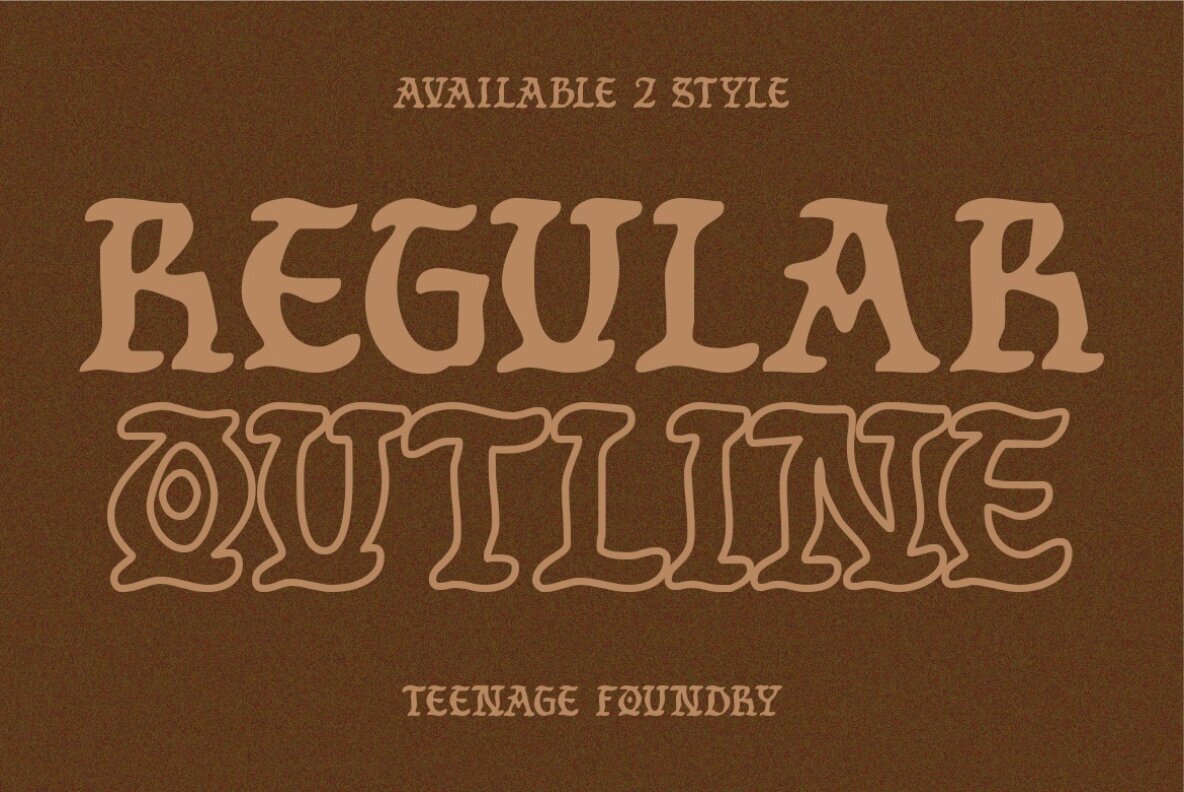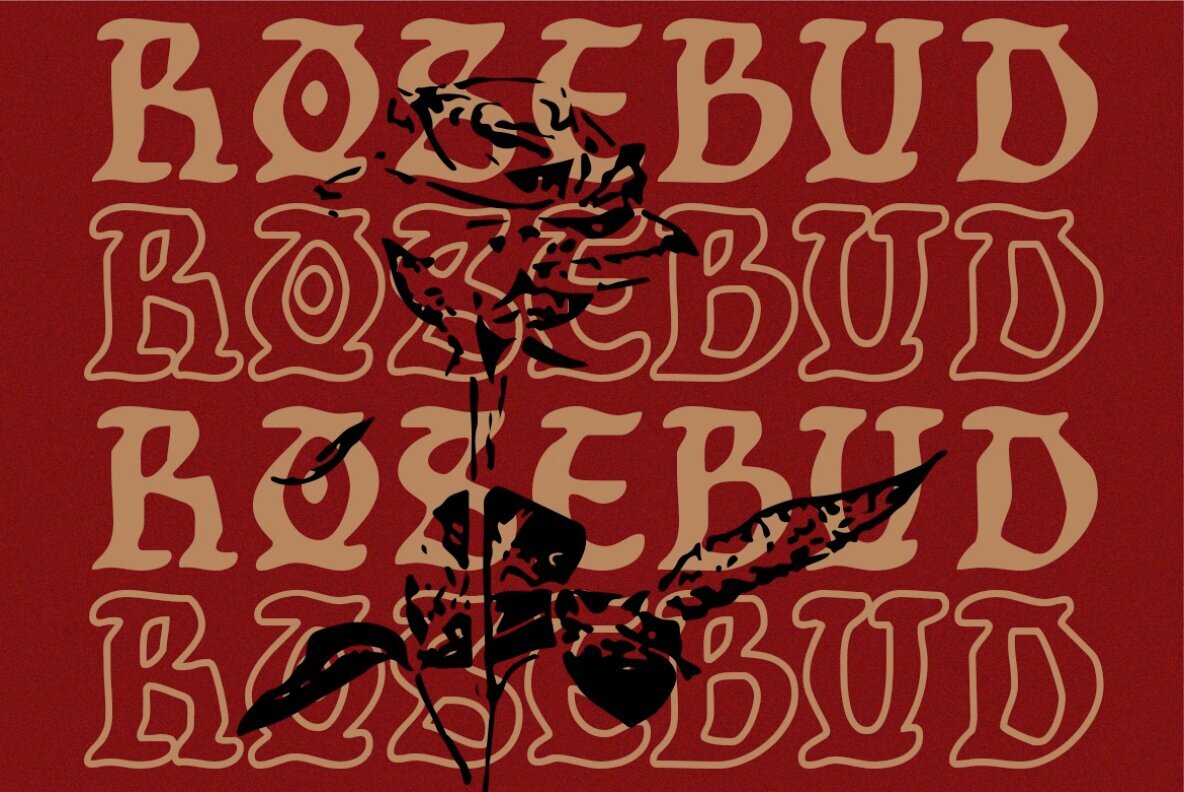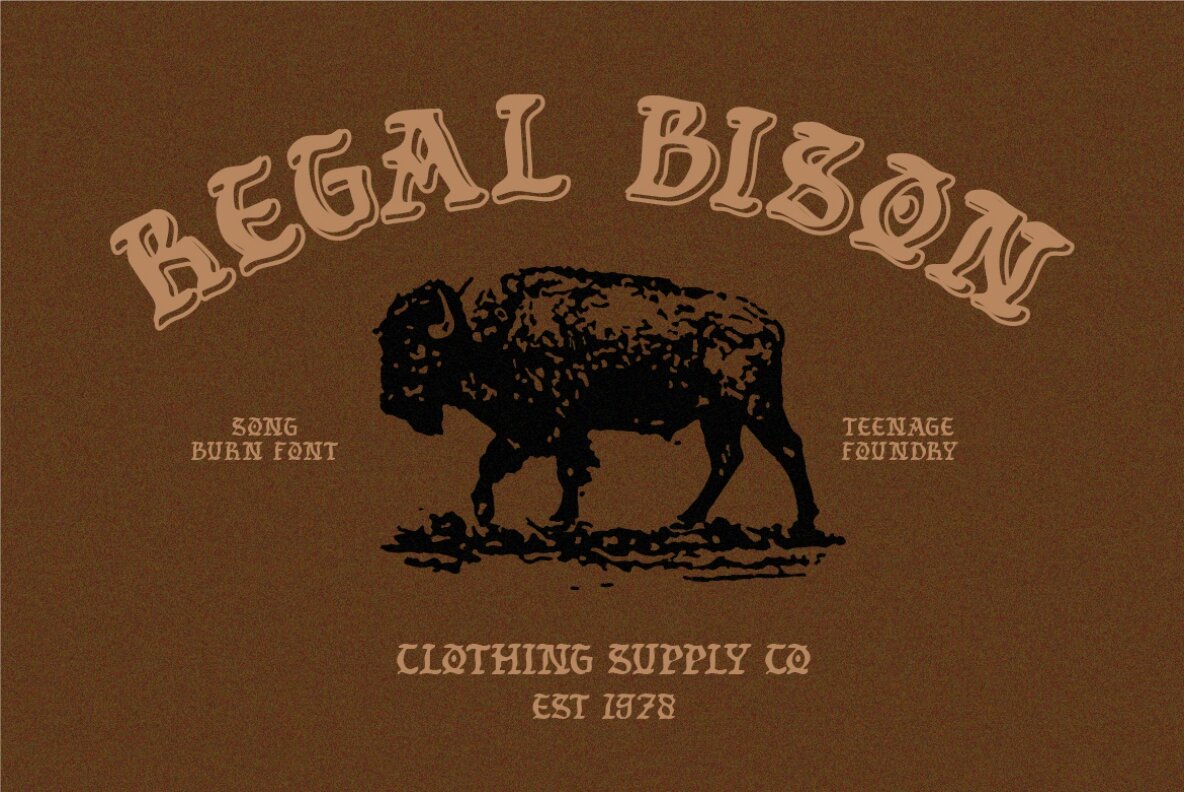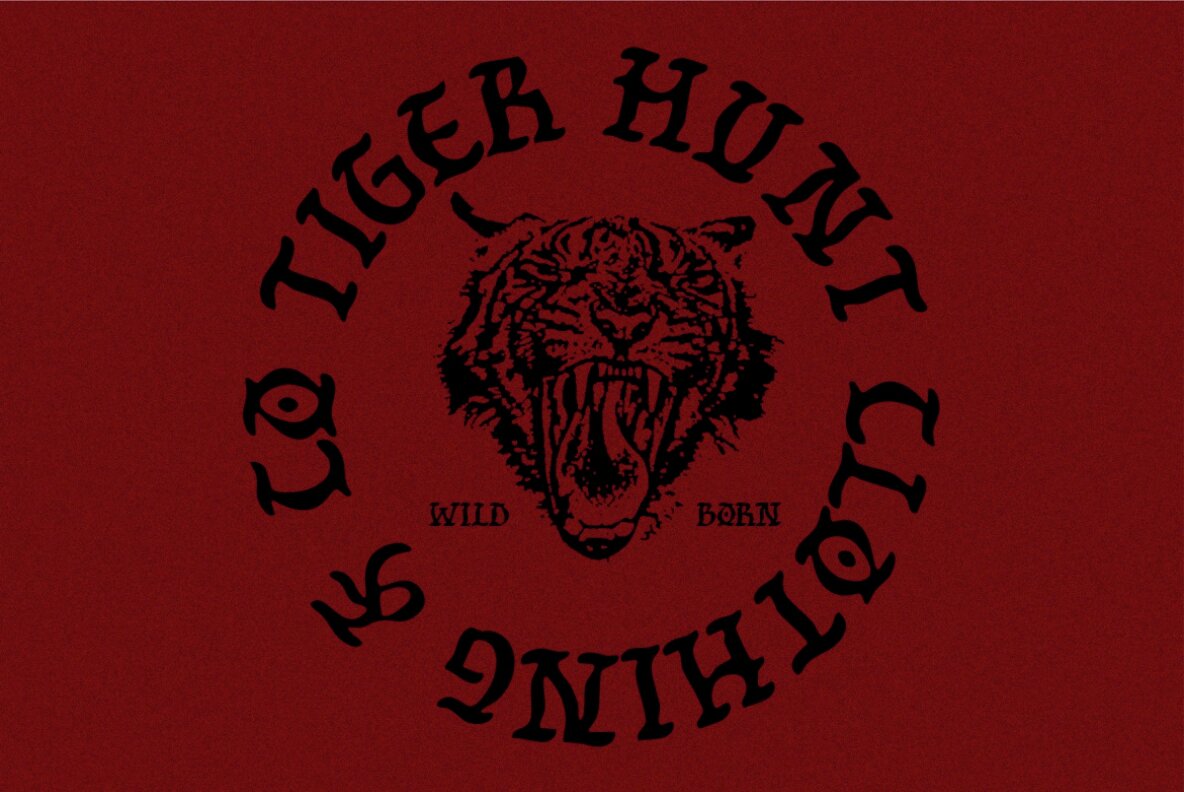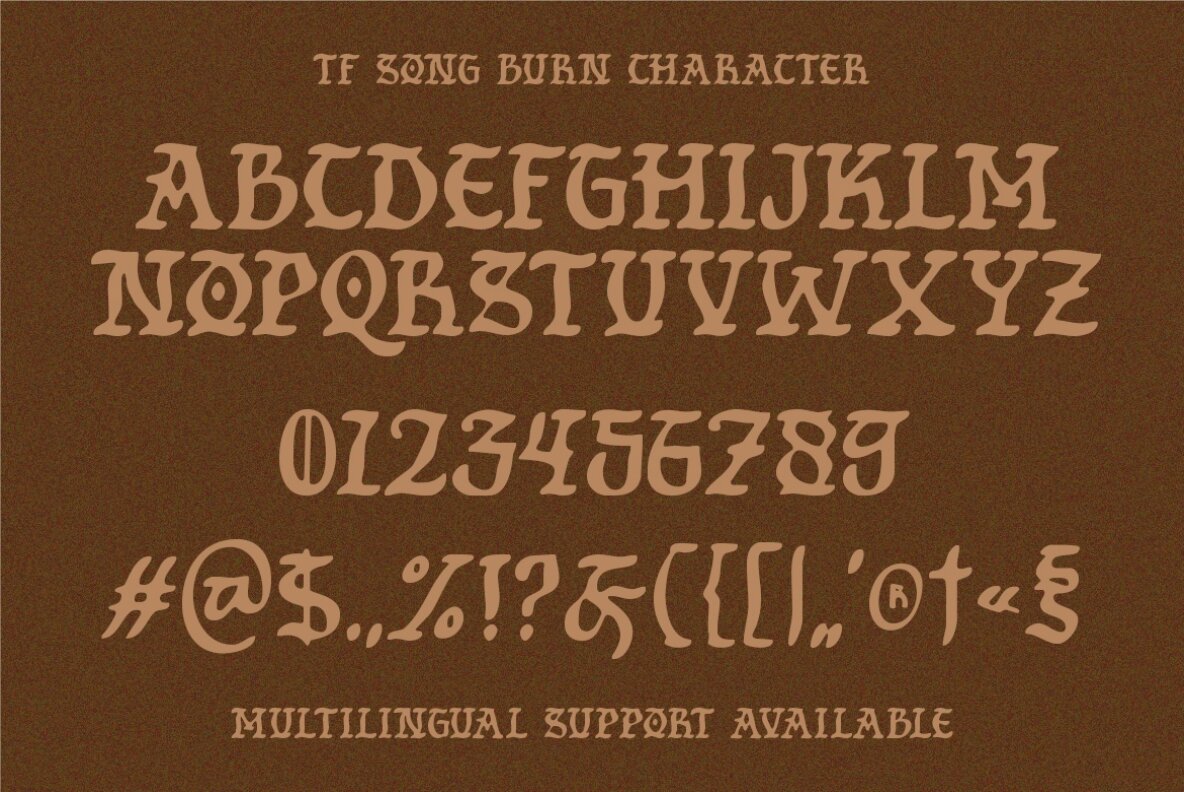
TF Song Burn Font
TF Song Burn - blackletter display font - a striking and unique design that is sure to bring a touch of old-world charm to your projects. Our font features a sticky-like texture that adds an organic, handcrafted feel to your text, while the blackletter design gives it a distinctly medieval character. Our regular font style is perfect for designs that require a bold and imposing typography, while the outline style provides a more refined and delicate appearance. Both font styles are perfect for creating posters, event invitations, book covers, logos, and other projects where a touch of vintage charm is desired. The sticky-like texture of our font adds an artistic and unique touch that you won't find in any other blackletter font. It provides just the right amount of roughness to give your text an edgy and bold appearance without sacrificing legibility.